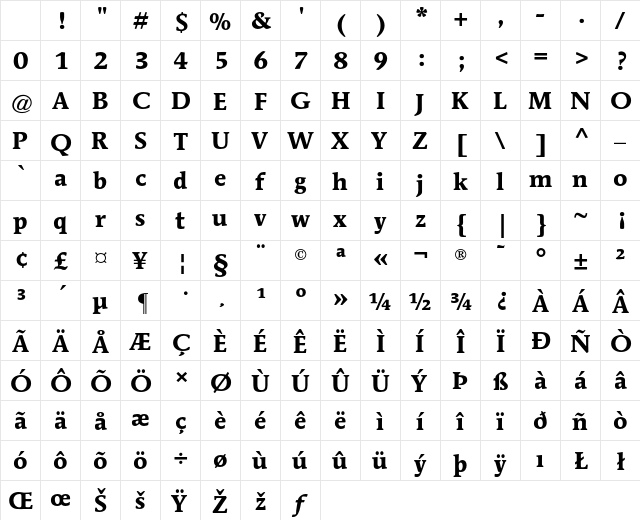
Complete Mendoza Roman AT Bold Regular glyph index. Displaying only characters natively supported by Mendoza Roman AT Bold Regular font.
Mendoza Roman AT Bold is a composed and adaptable typeface that performs quietly and consistently across a wide range of design contexts. Its bold stroke weight gives it real presence on the page.